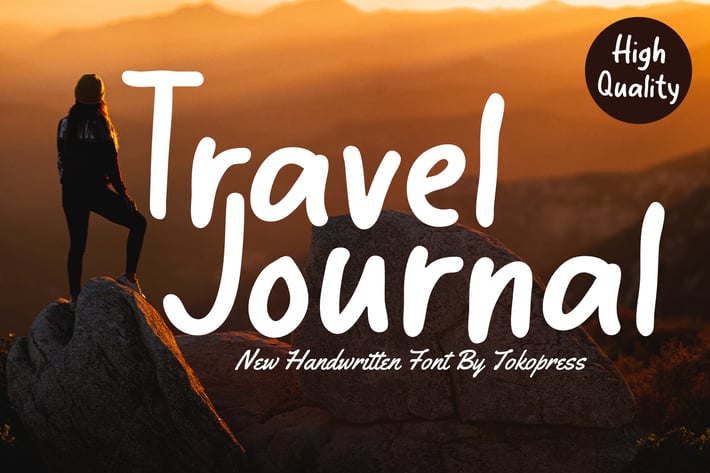
Travel Journal - Handwriting Travel font
Travel Journal - Handwriting Travel Font
Handwritten journal font for travel storytelling with expressive flow and bouncy rounded strokes.
Travel Journal is a bold, playful handwritten typeface designed for long-tail use cases like travel blogs, quote cards, and adventure posters. With soft curves, generous spacing, and an easygoing rhythm, its rounded letterforms radiate warmth and approachability. The natural flow captures the imperfect charm of ink-on-paper writing—perfect for brands or creators who want to evoke a personal, adventurous tone.
Whether you're branding a YouTube travel vlog, creating dreamy vacation posters, or designing an Instagram carousel of wanderlust quotes, Travel Journal delivers the expressive edge your project needs. Its organic letter rhythm feels handwritten and personal—ideal for designs that aim to be memorable, emotional, and grounded in storytelling.
Key Features
Effortlessly personal and full of character :
- Playful handwritten style with organic strokes
- Designed for high readability in posters and quotes
- Rounded and flowing baseline for a relaxed, journal-like look
- Great for social media posts, travel websites, lifestyle branding, and personal stationery
- Basic latin A-Z and a-z, Numbers, Punctuation